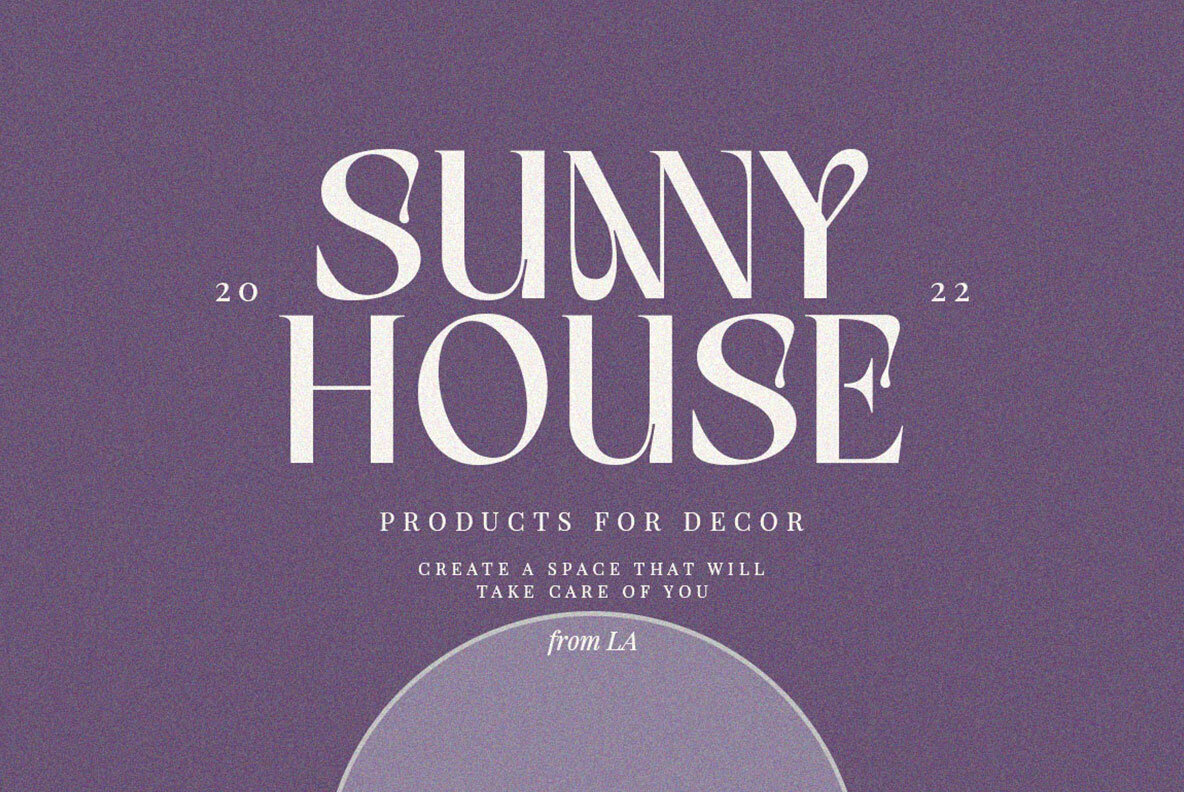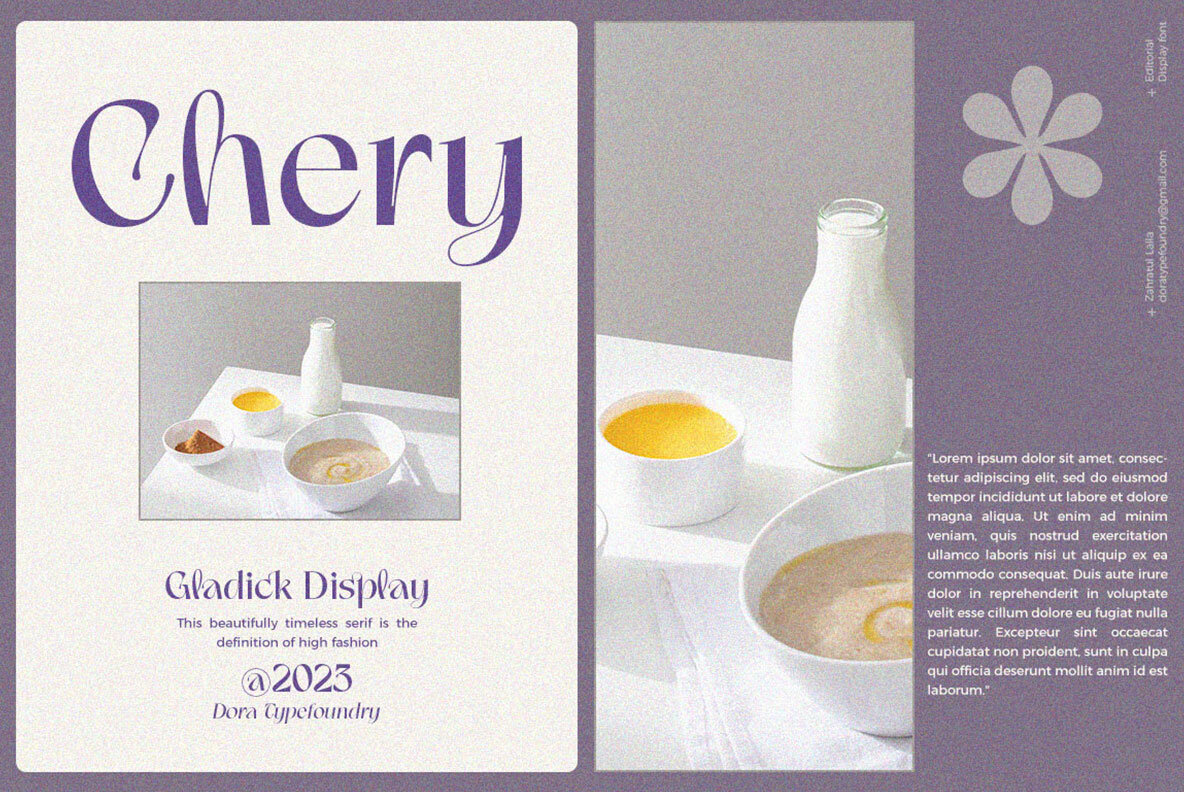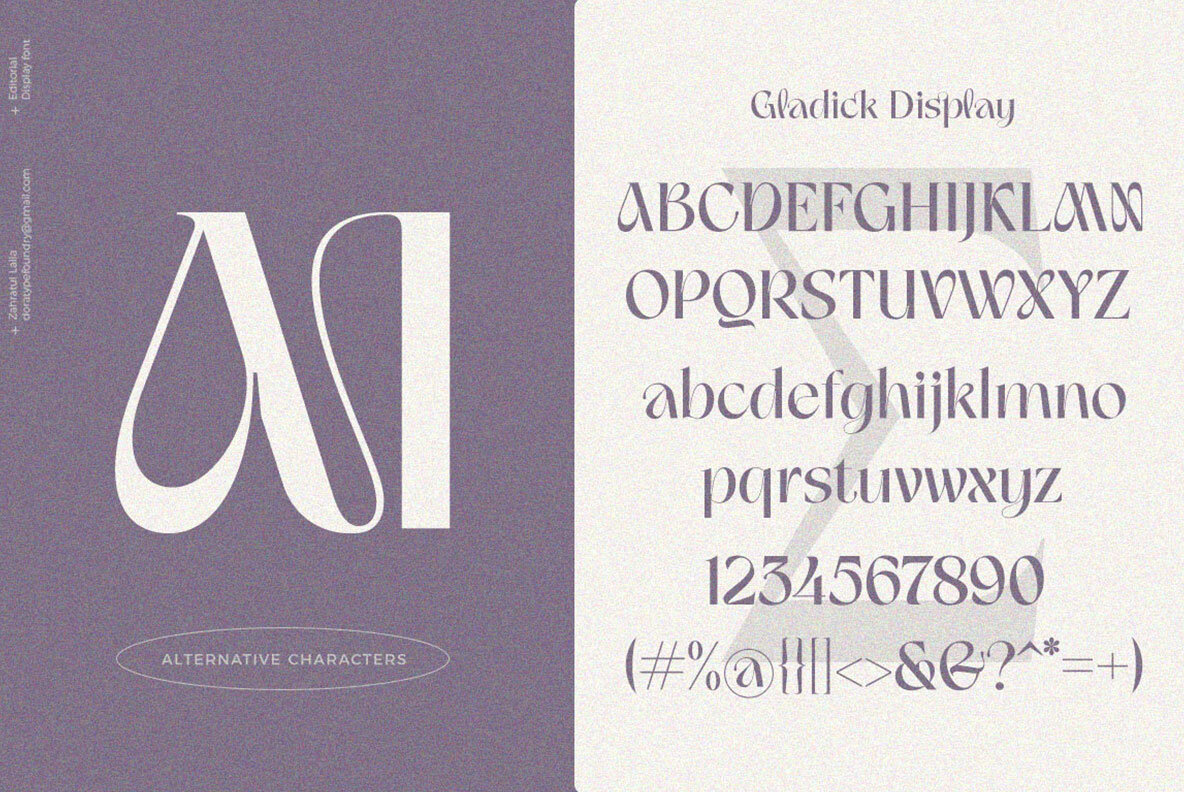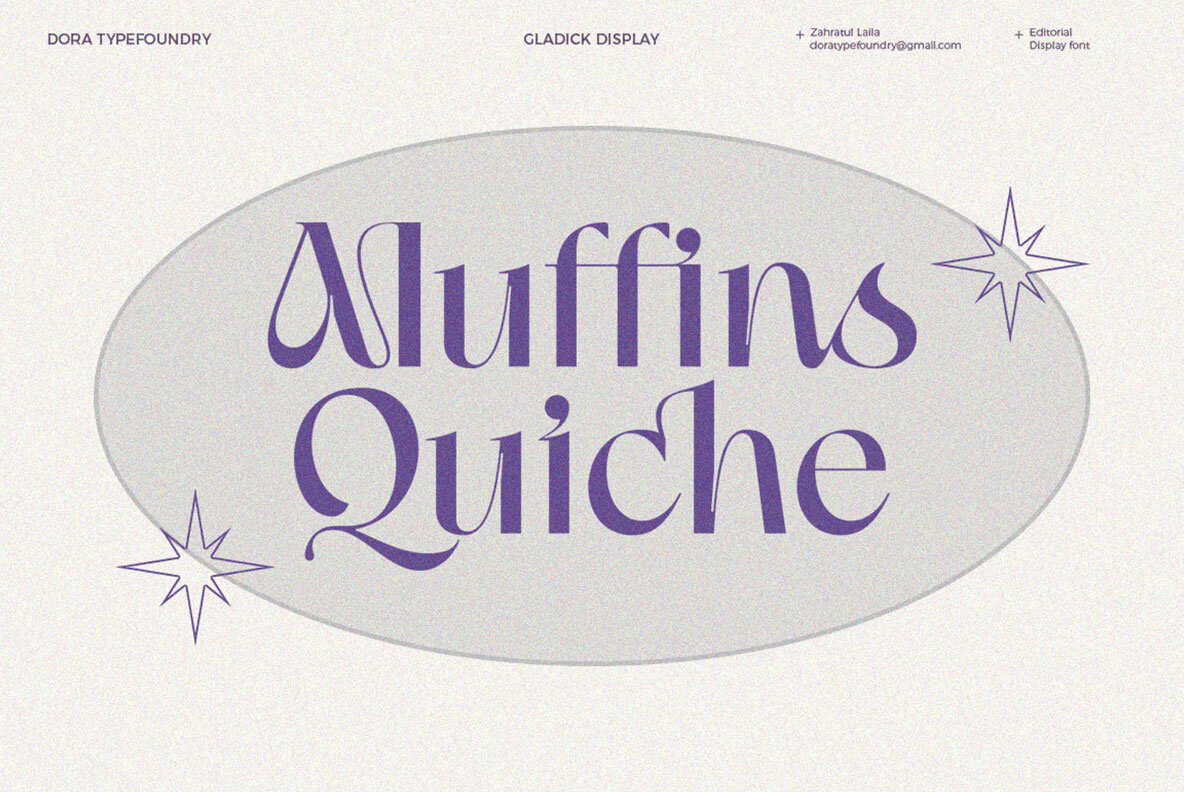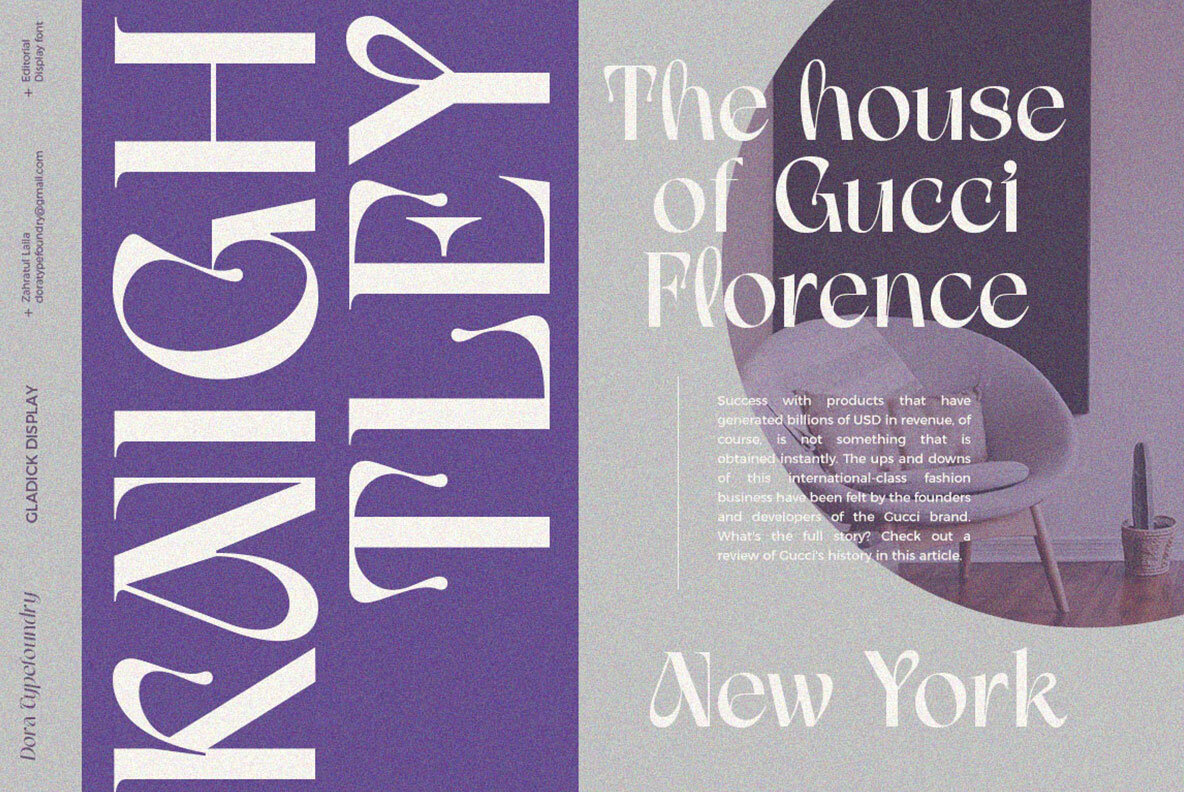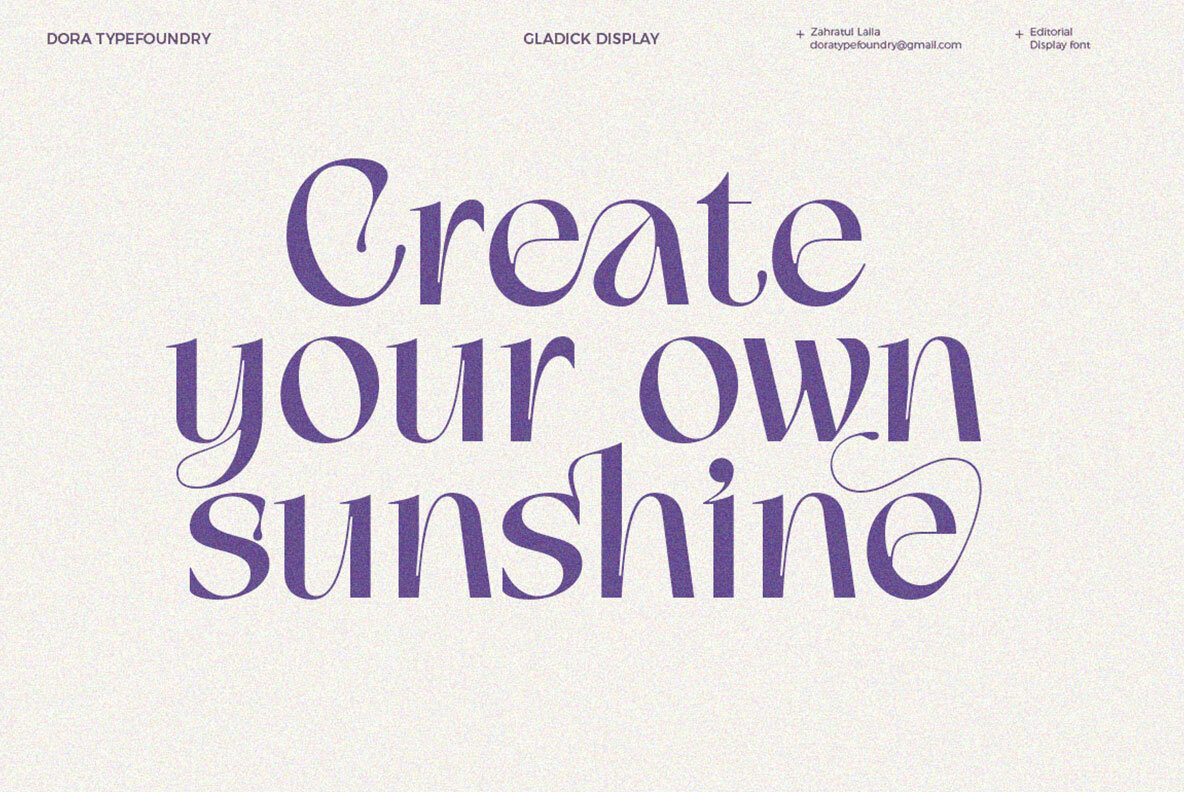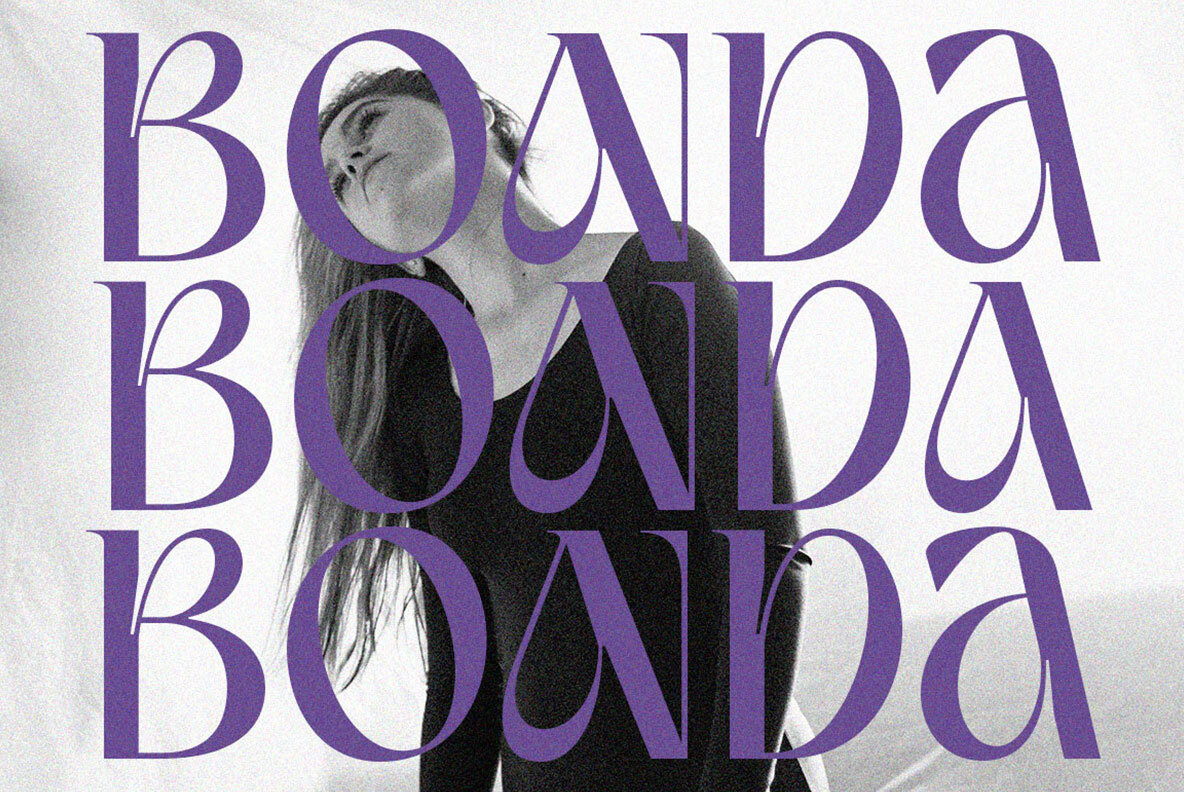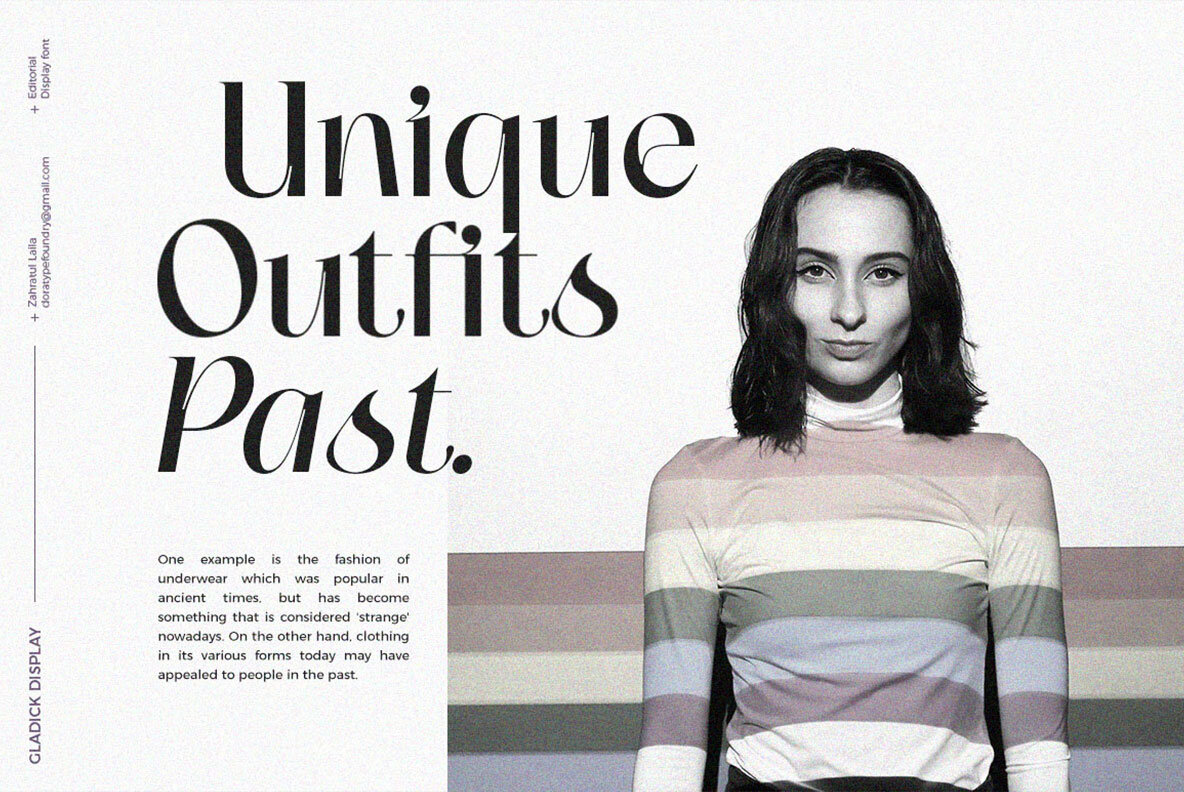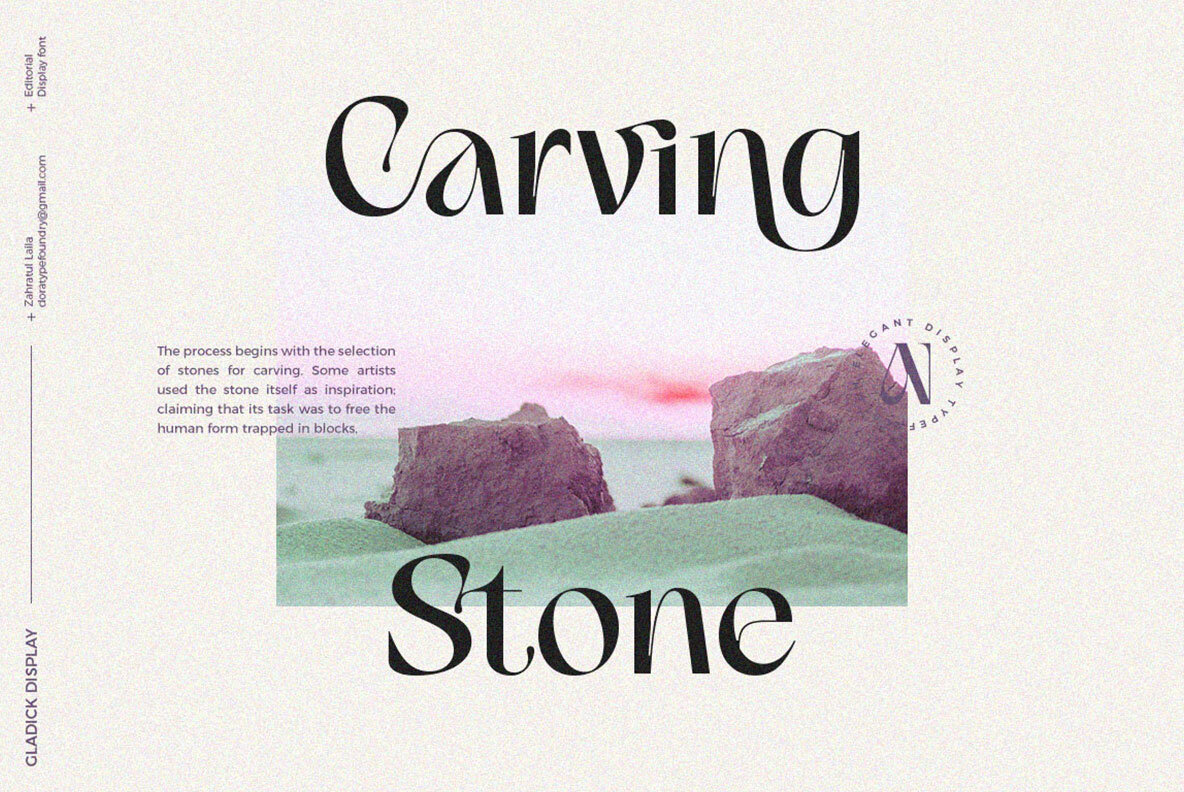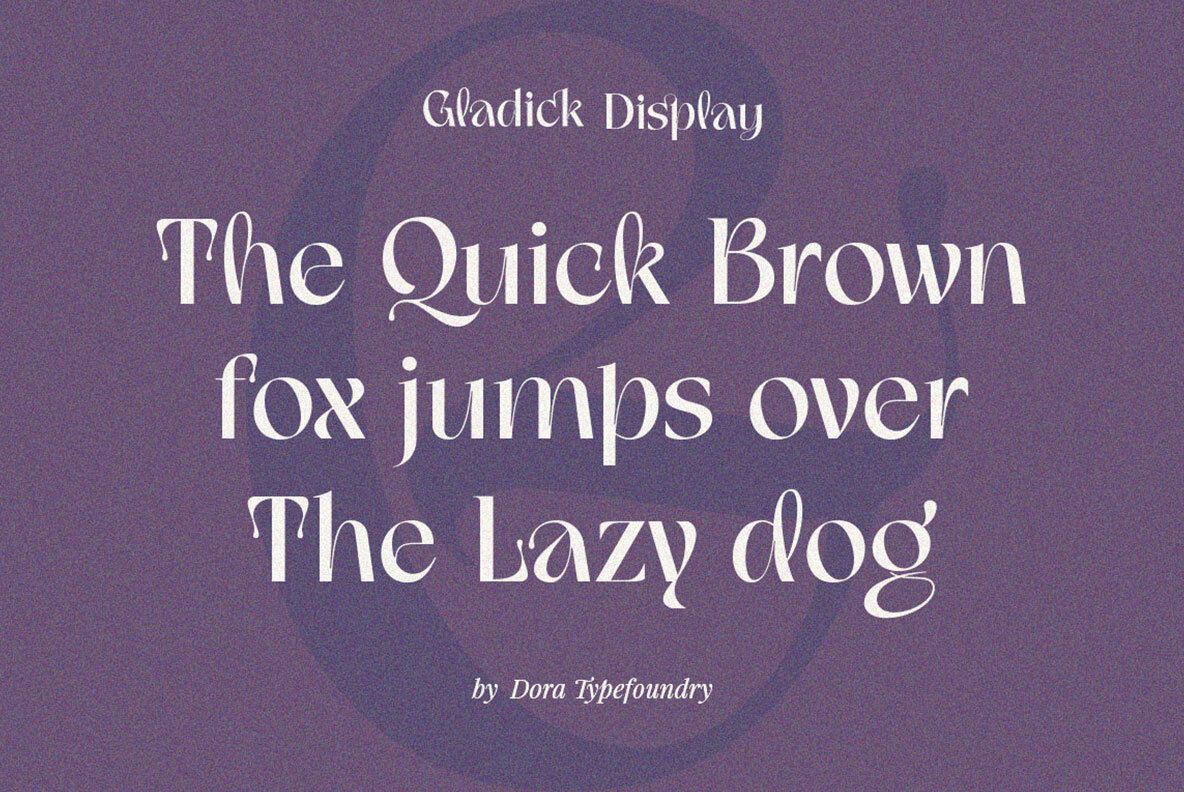
Gladick Font
Gladick Display is the perfect font for fashion branding and editorial design. With a modern, contemporary feel formed from sans style typeface but with the added contrast of serifs, each letter has been crafted carefully to make your text unique yet stylish. Soft curves add boldness that can be further enhanced by its included italics feature - making it truly stand out! All uppercase & lowercase letters are supported as well as numbers, symbols & alternates/ligatures- all PUA encoded so you have full control over customizing Gladick accordingly.